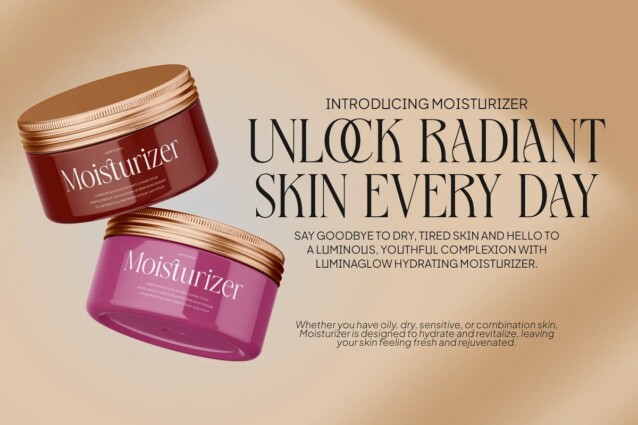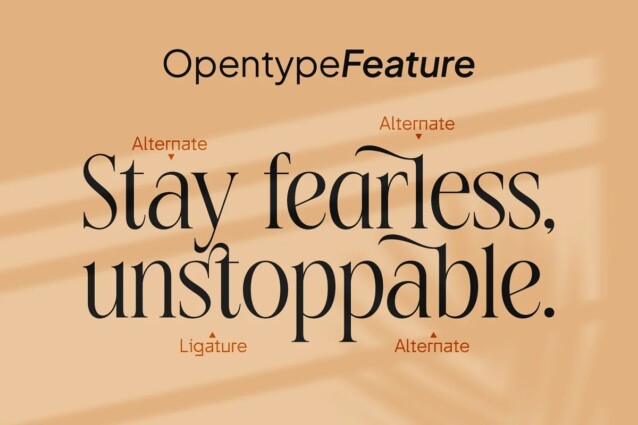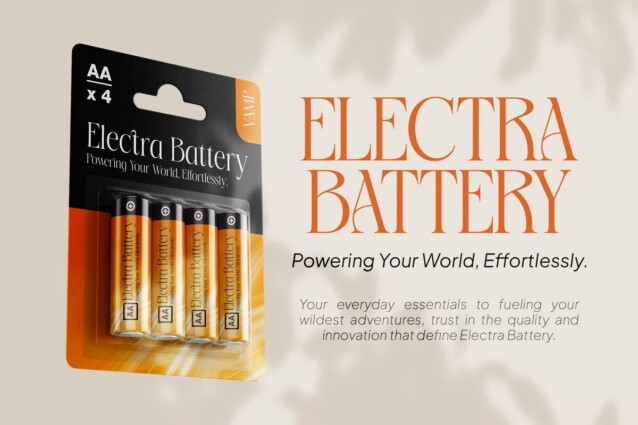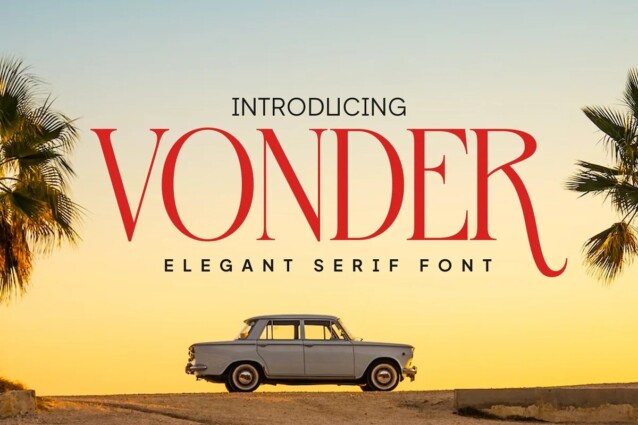
Vonder Serif Font
Vonder Serif Font is feminine and elegant typeface with multilingual support. Made from font designer named Vampstudio. Immerse yourself in the allure of classical design, where every curve and stroke tells a story of timeless elegance. “Vonder” is more than just a font; it’s a journey into the artistry of typography, meticulously designed to capture attention and convey a sense of refined grace
Vonder is perfect for branding projects, logo, wedding designs, social media posts, advertisements, product packaging, product designs, label, photography, watermark, invitation, stationery and any projects that need handwriting taste.